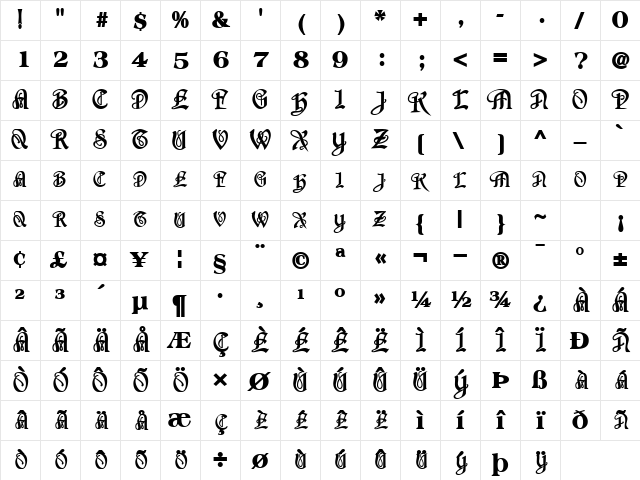
CollingswoodSCapsSSK Bold Free Font
CollingswoodSCapsSSK Bold
Design Context for CollingswoodSCapsSSK
CollingswoodSCapsSSK echoes the hand-painted signage and woodblock typography of the American frontier, with a warm, rugged personality. Its bold stroke weight gives it real presence on the page.